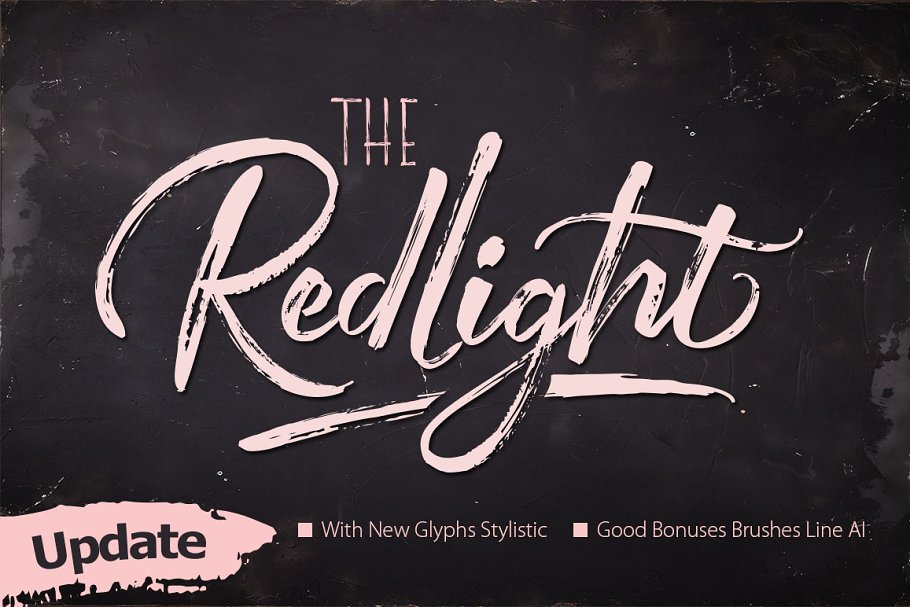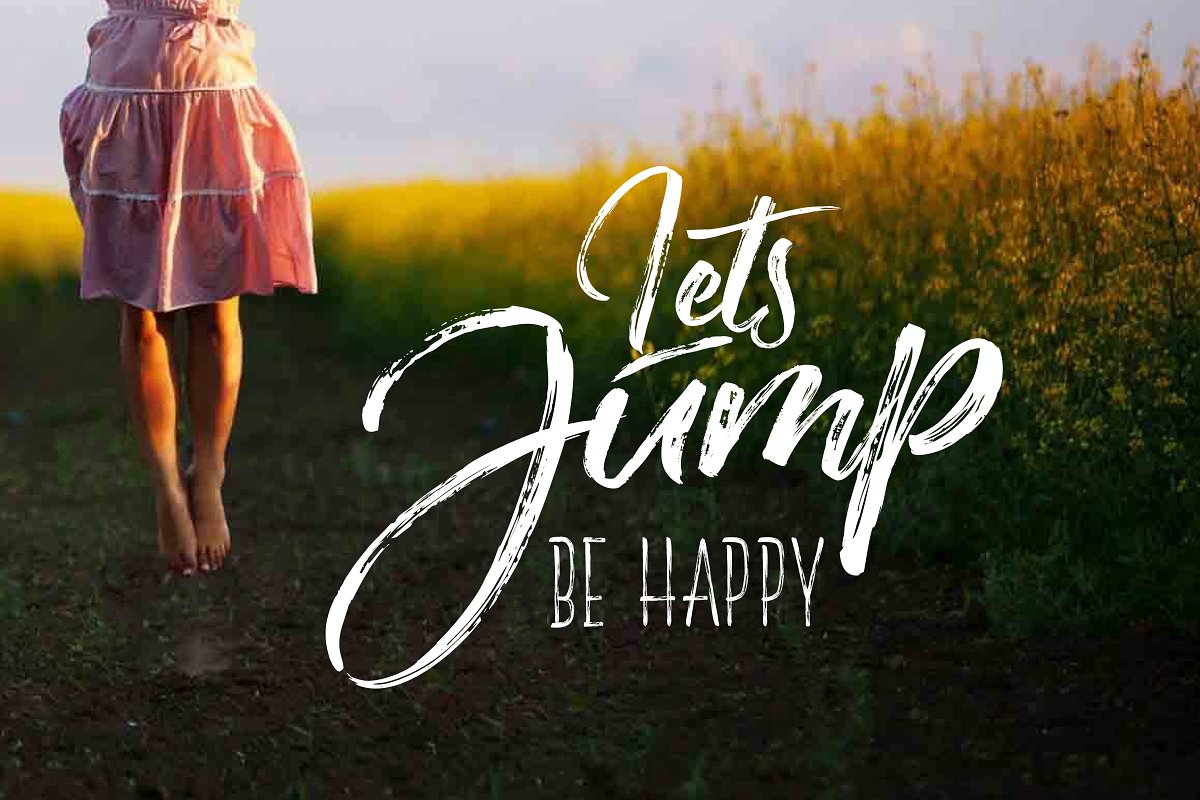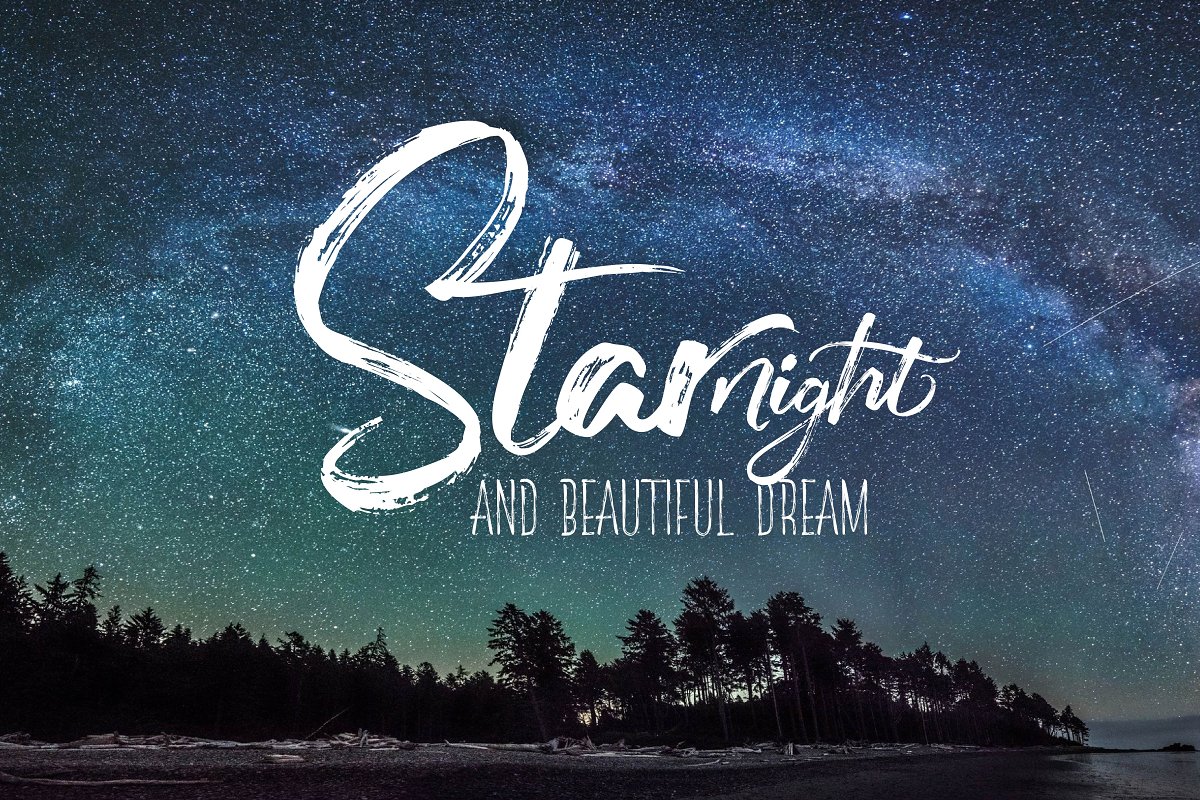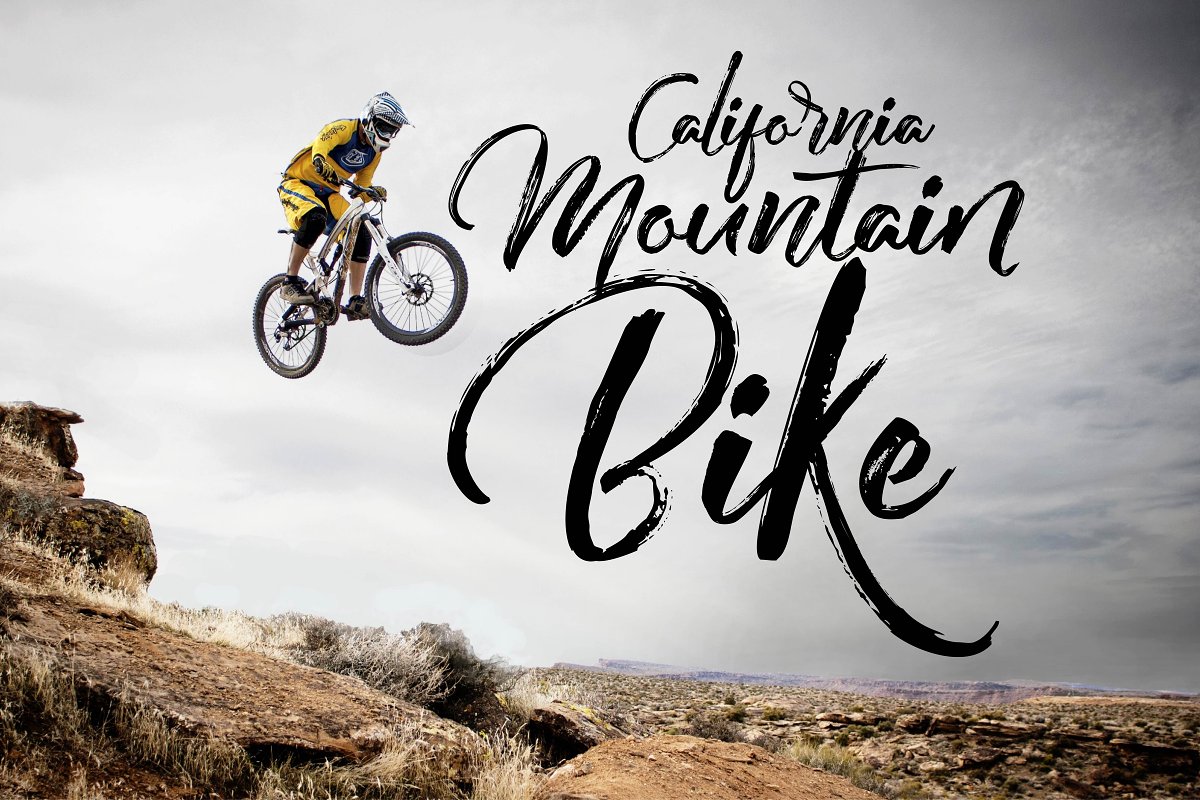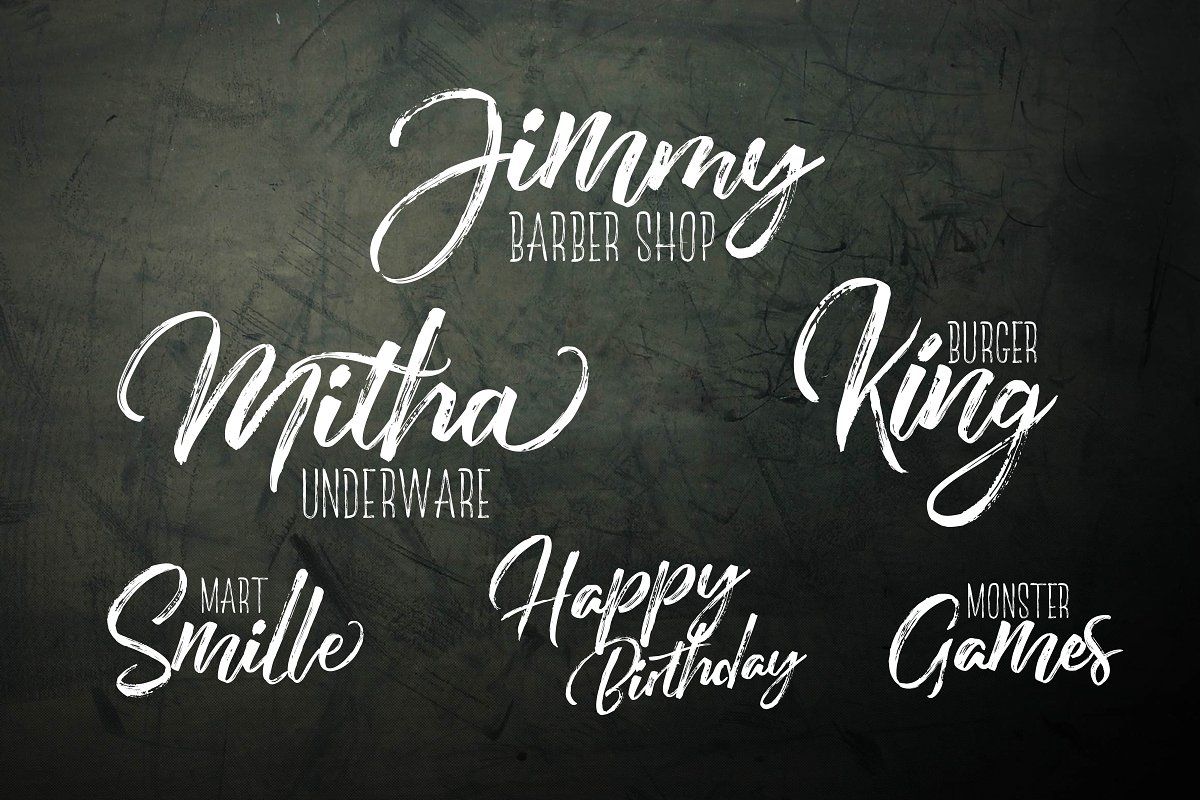
About the The Redlight Duo UPDATE Font
hi Friends, , , , , , The Redlight Font Duo is a beautiful Script, It suitable for wedding invitation, greeting cards, T-Shirt, Logo or any design that you create, comes with a complete set of standard characters, Alternates, Punctuation & international glyphsFeaturesUPPERCASElowercasenumeralpunctuationinternational glyphsSupport PUA unicode (specially coded fonts)LigaturesAlternates GlyphsIncludesTheRedlight